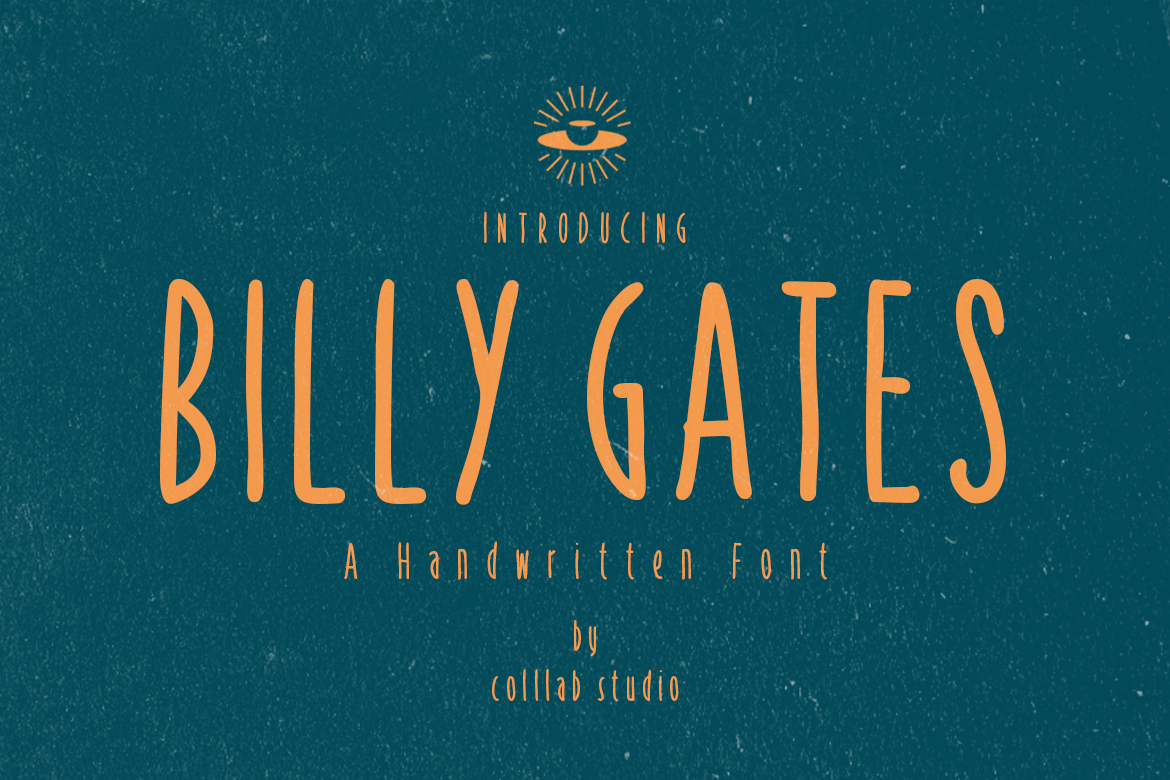
Billy Gates | A Handwritten Font
When it comes to san serif typefaces, you can either go the classic, versatile route with all those perfectly round curves and cute little feet or you can break out of the box. Billy Gates lets you do both!
Billy Gates is a unique handwritten font with an elegant flair that's perfect for those who want their message to stand out from the crowd.
With Billy Gates, you can make your words dance across the page or screen with a quirky charm that will catch everyone's eye. They'll love the way your message looks so much that they won't even care what it says.